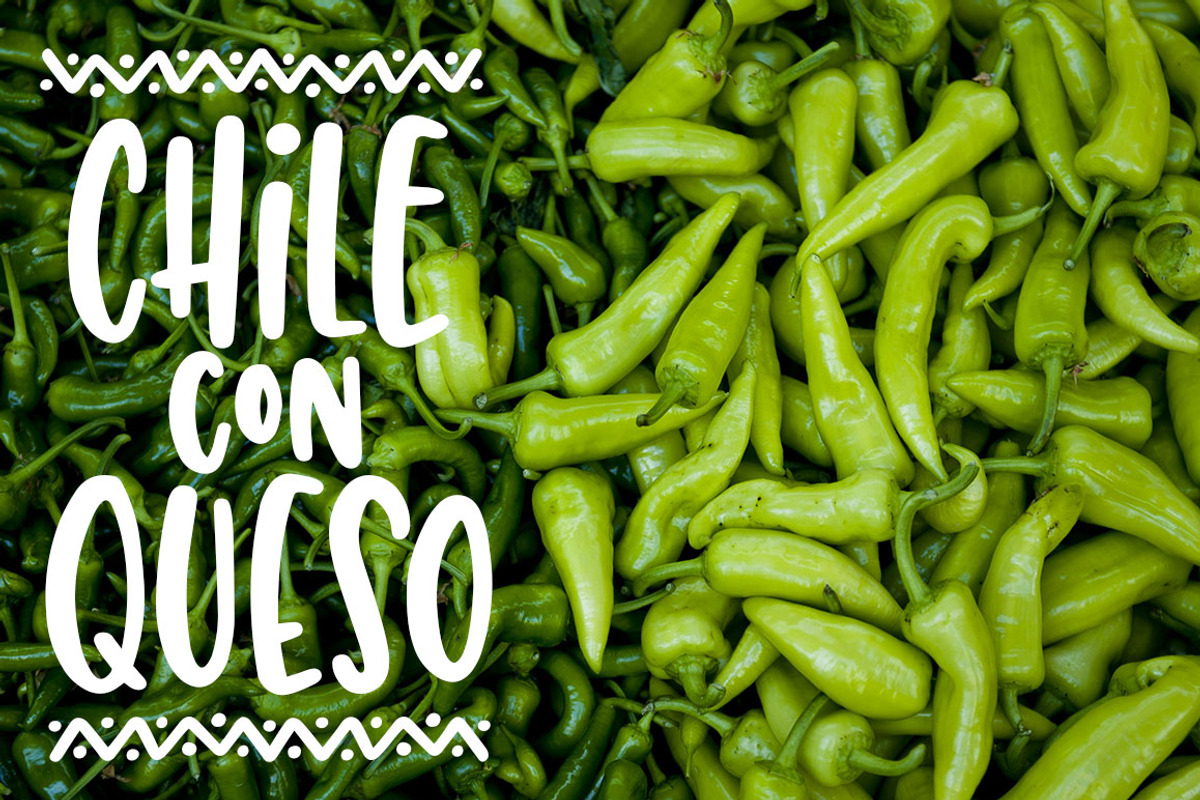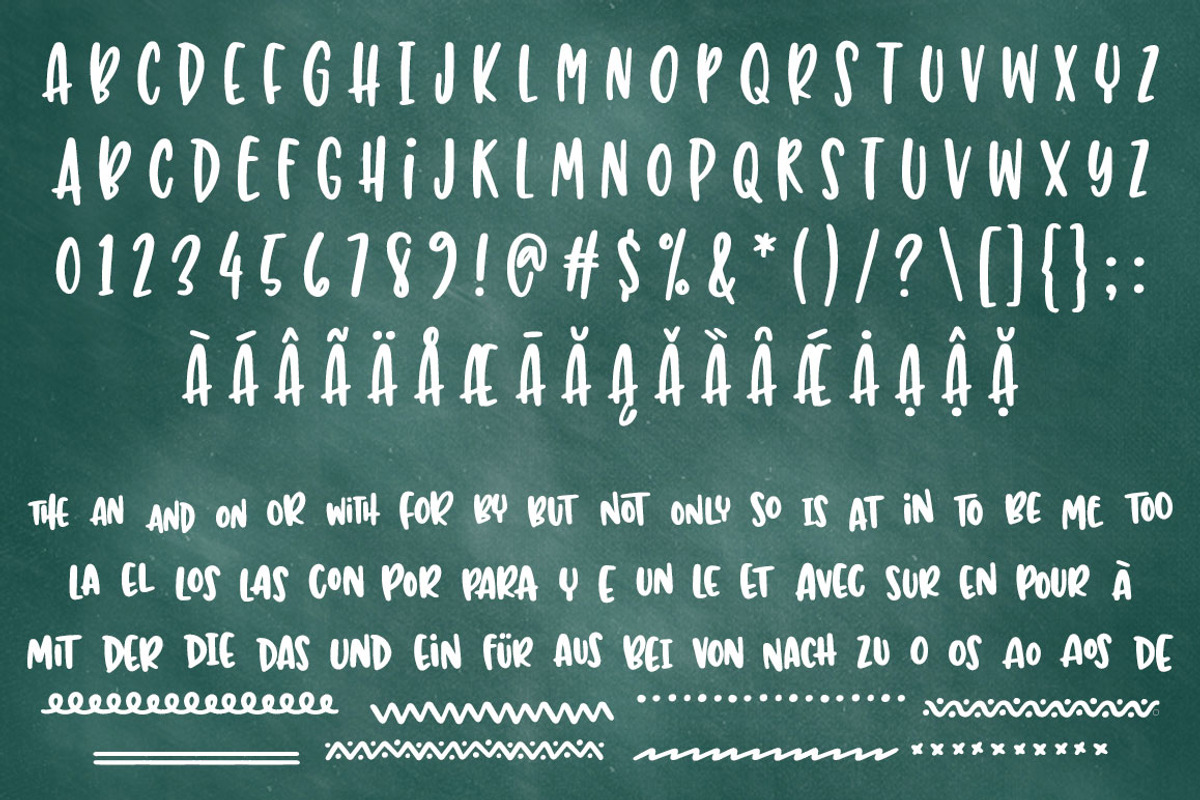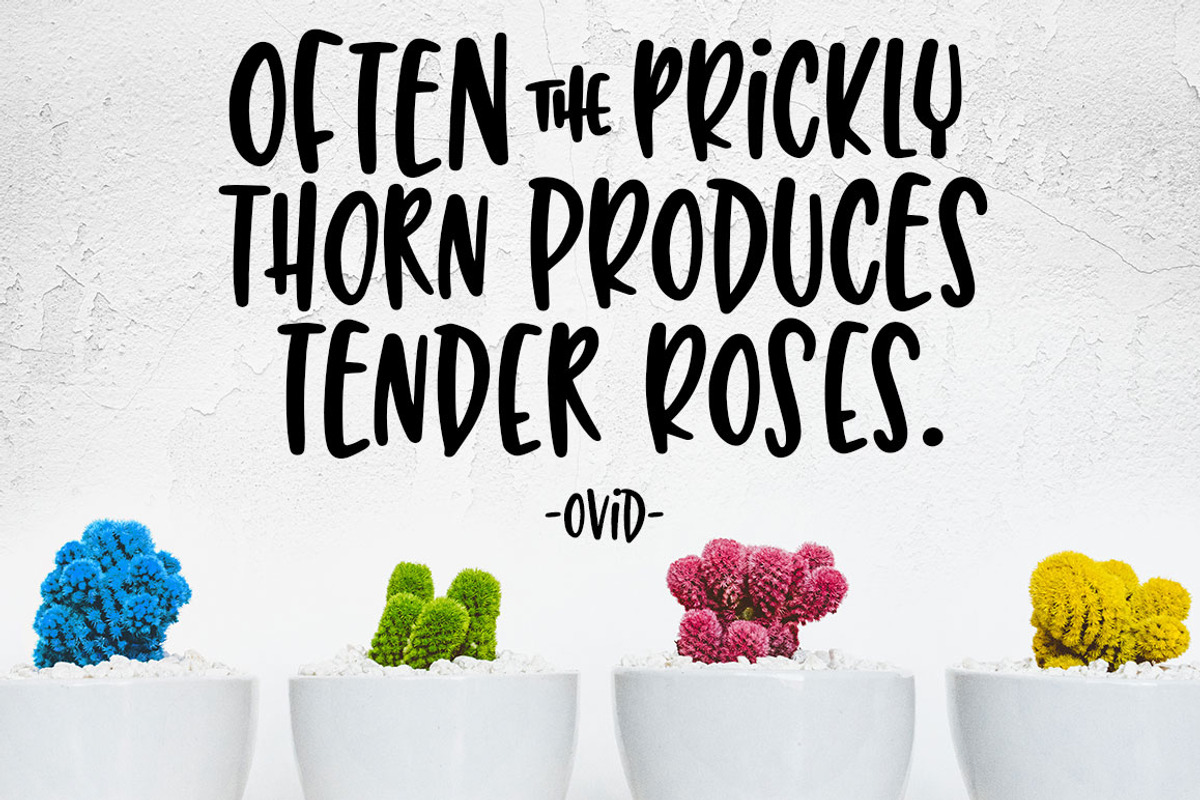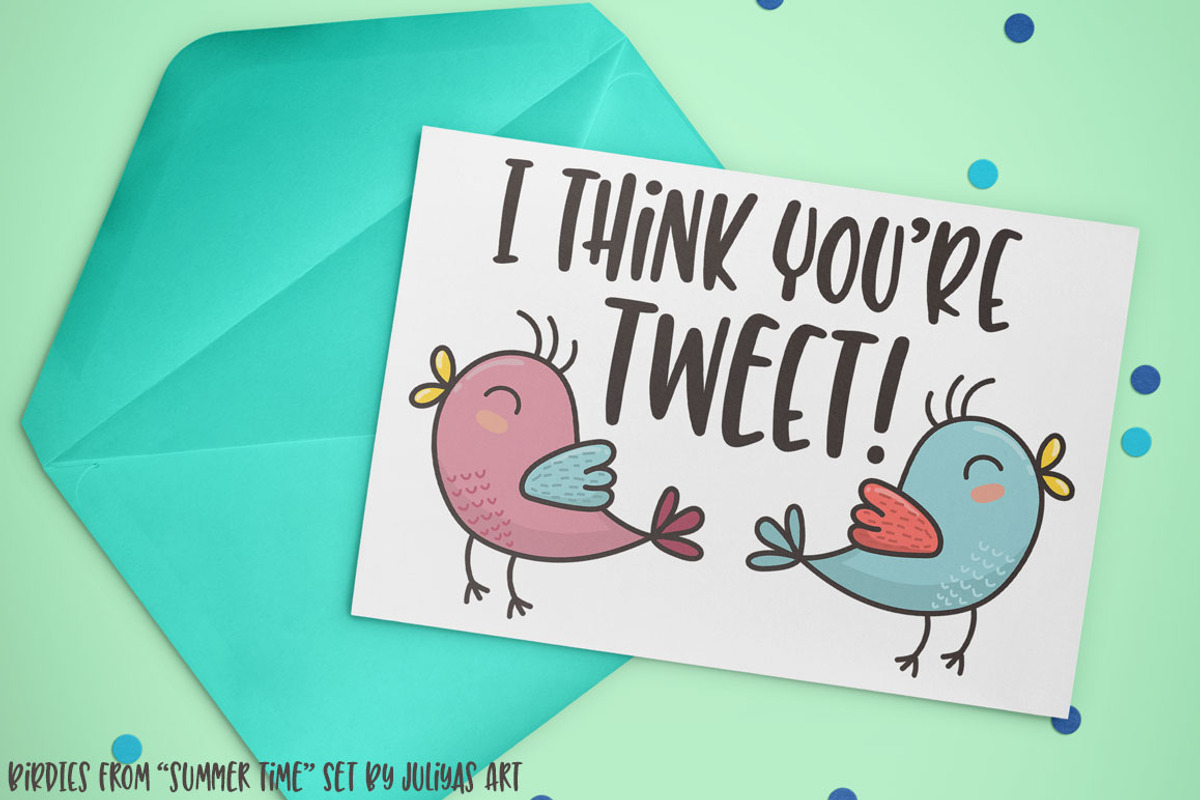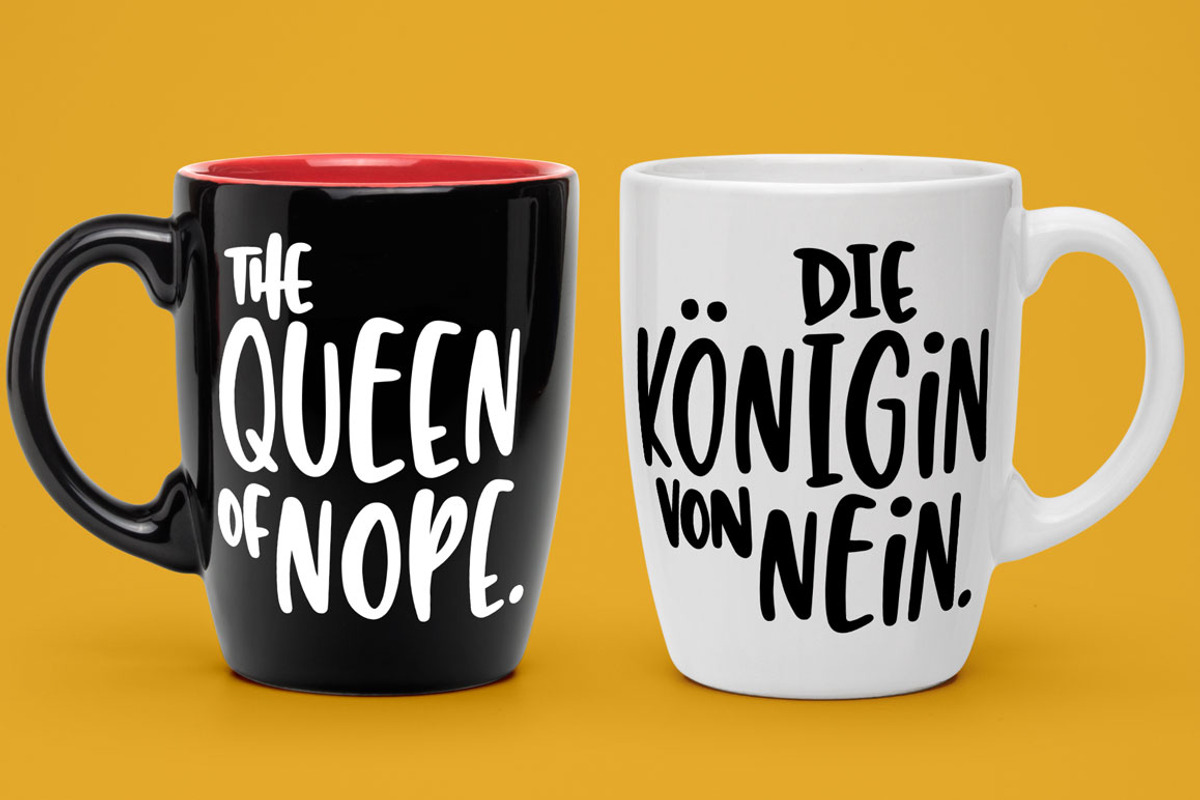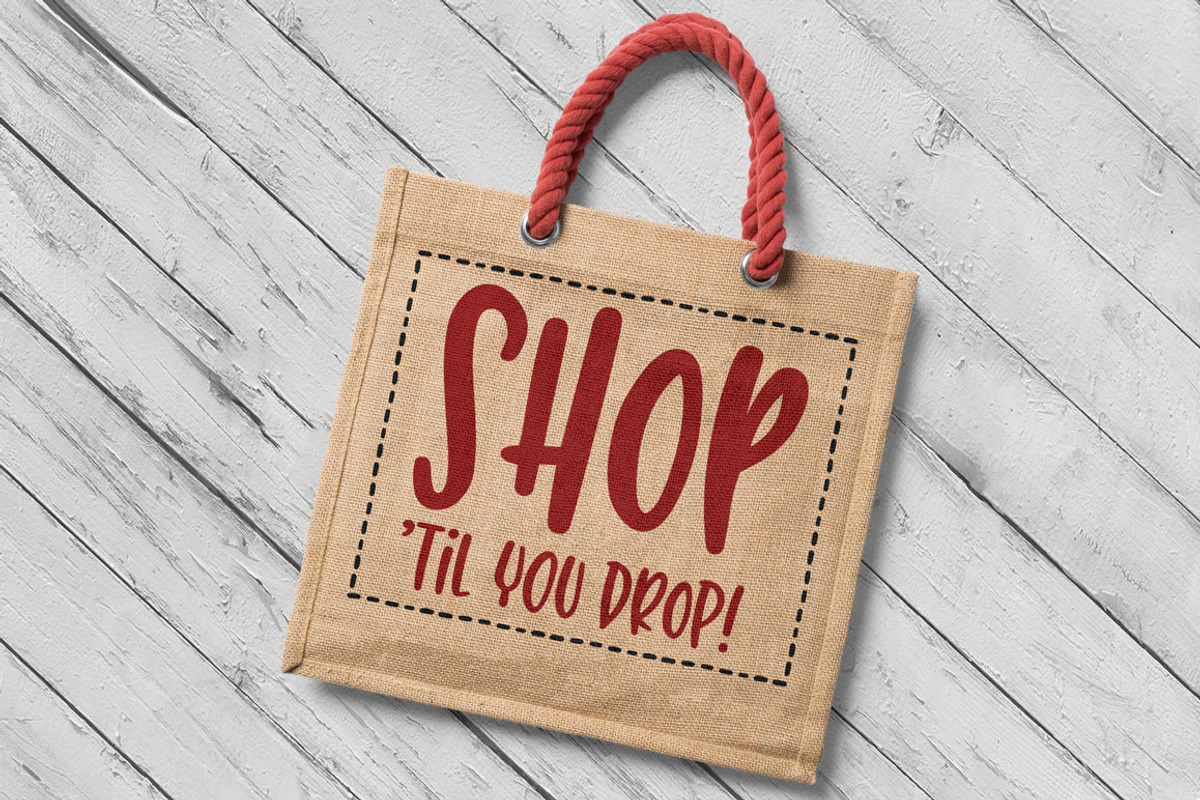
Succulent: a hand-lettered font
Introducing Succulent, a new hand-lettered font! This double-uppercase, tall and skinny font has a fun bounce -- perfect for cute, fun, all-ages projects!
You'll also get Succulent Catchwords -- a set of small words like THE, AND, OF, and many more. And they aren't just in English -- there are also catchwords in Spanish, French, German, and Portuguese!
Also included in the Succulent Catchwords file are a baker's dozen of repeating patterns. Just type the letter a few times, and make a cool border as long as you want! (See the included PDF guide for a map of which letter to type for which pattern or catchword!)
Succulent also contains over 350 extended characters from the Latin-1, Latin Extended-A, Latin Extended-B, and Latin Extended Additional character sets, for tons of language support.
Standard characters A-Z, a-z, 0-9, and lots of punctuation
Over 350 extended characters from the Latin-1, Latin Extended-A, Latin Extended-B, and Latin Extended Additional sets
Assorted little catchwords in English, Spanish, French, German, and Portuguese
Extra underlines for the catchwords
13 repeating border patterns